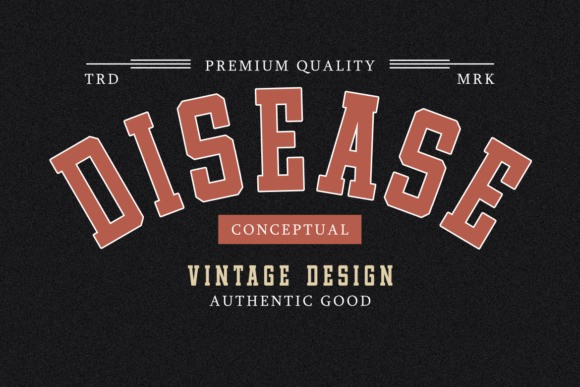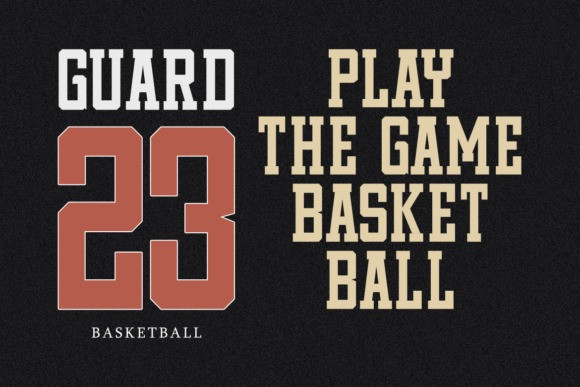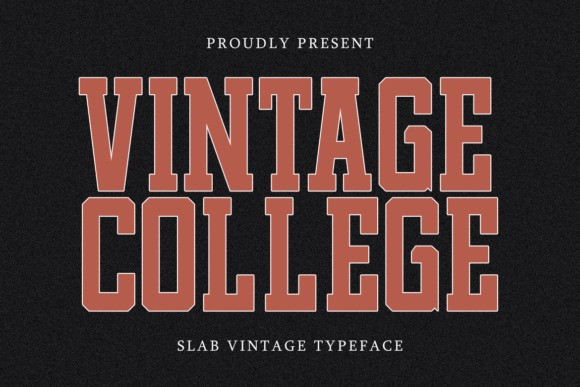
Vintage College Font
Vintage College Font is a slab vintage typeface with bold geometric shapes and strong varsity-inspired serifs. Perfect for sports branding, posters, apparel, and editorial design, this font brings a classic and energetic look to your designs. Whether you are working on team logos or creative merchandise, Vintage College will make your project stand out. Add it to your creative toolbox and enjoy a truly slab vintage vibe!